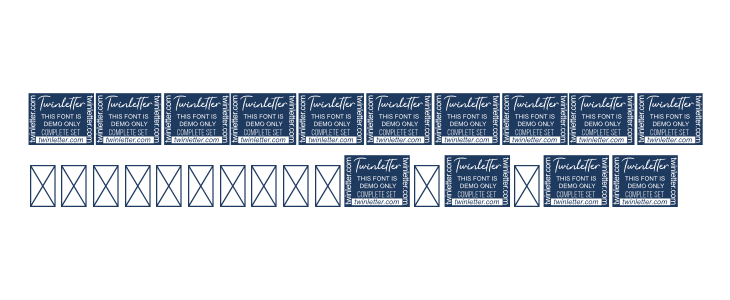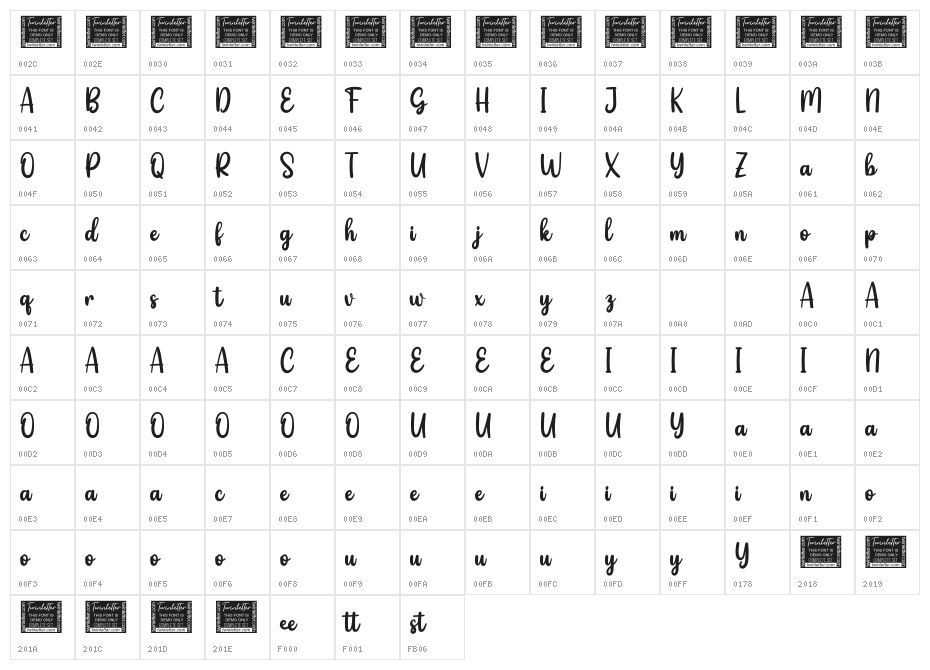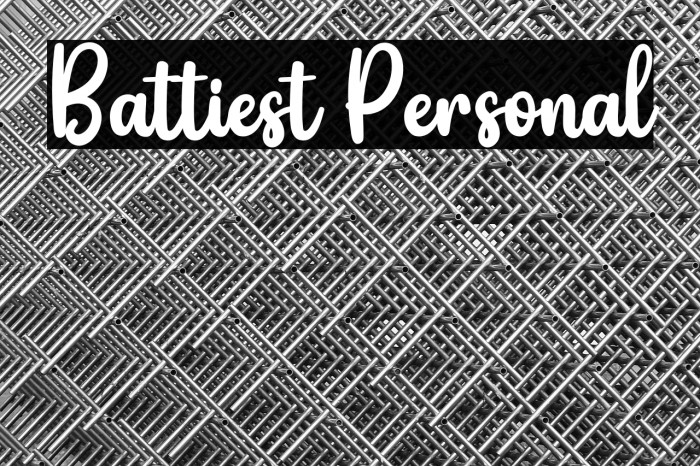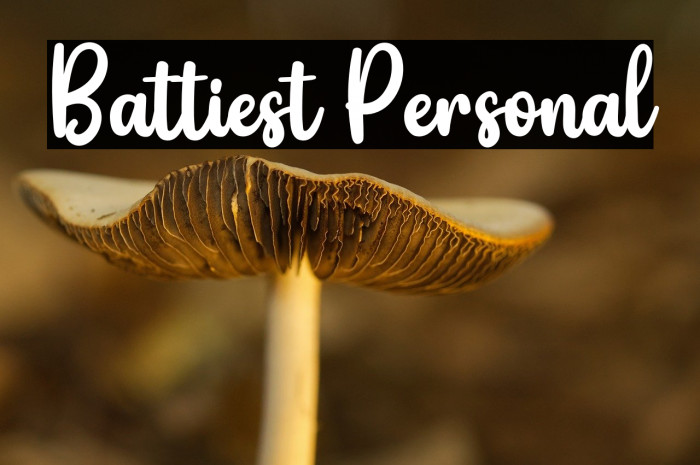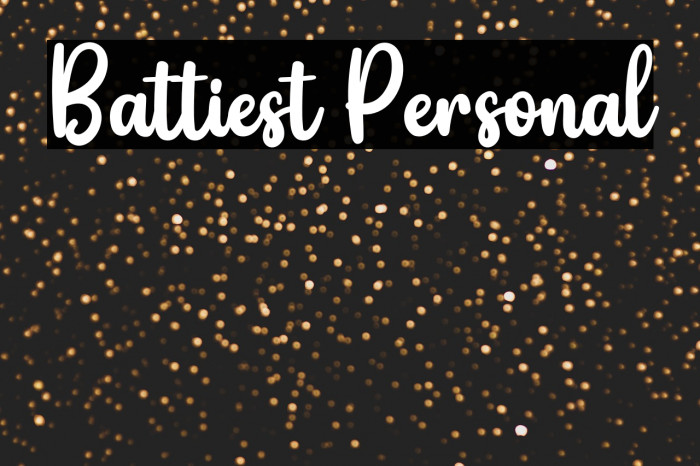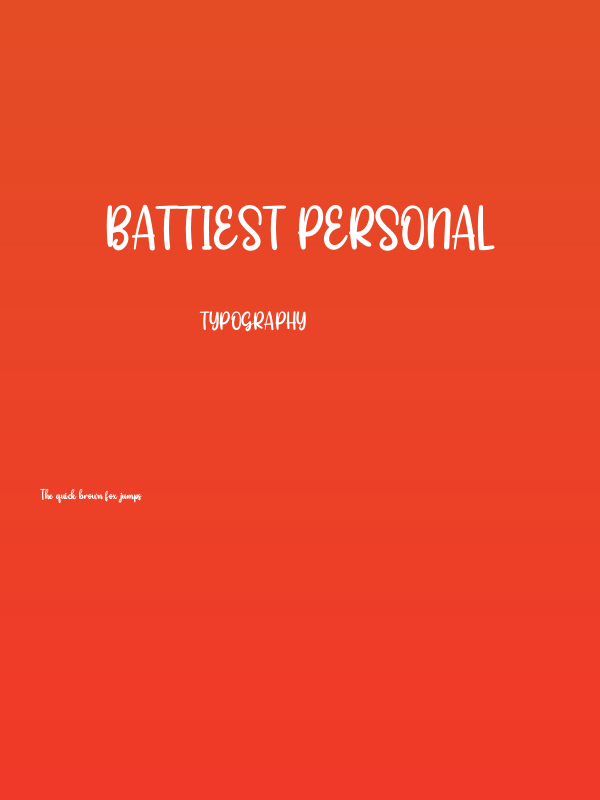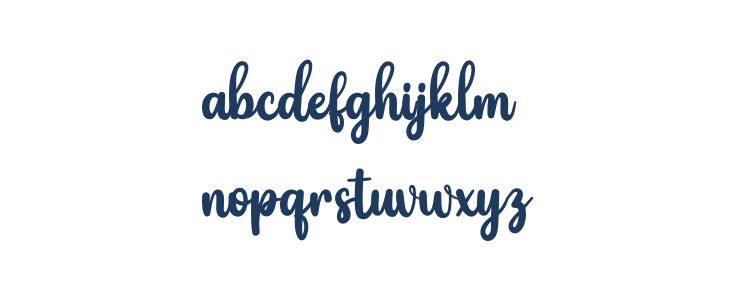
Battiest Personal Font
Battiest Personal Description
This font features a playful and bold script style with a handwritten appearance. The uppercase letters are tall and slightly condensed, giving them a strong presence, while the lowercase letters are more fluid and connected, adding a casual and friendly feel. The strokes are consistent in thickness, providing a uniform look across all characters. The font includes a full set of uppercase and lowercase letters, numbers, and a selection of special characters. Its design is both modern and approachable, making it suitable for a variety of creative projects.
Use CaseLogos, Headlines, Invitations
Proposed ProjectsIdeal for greeting cards, invitations, logos, and social media graphics.